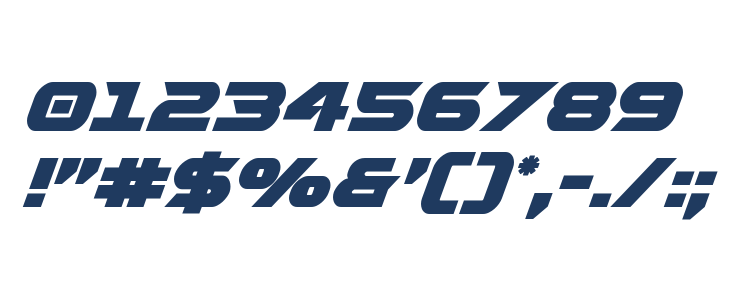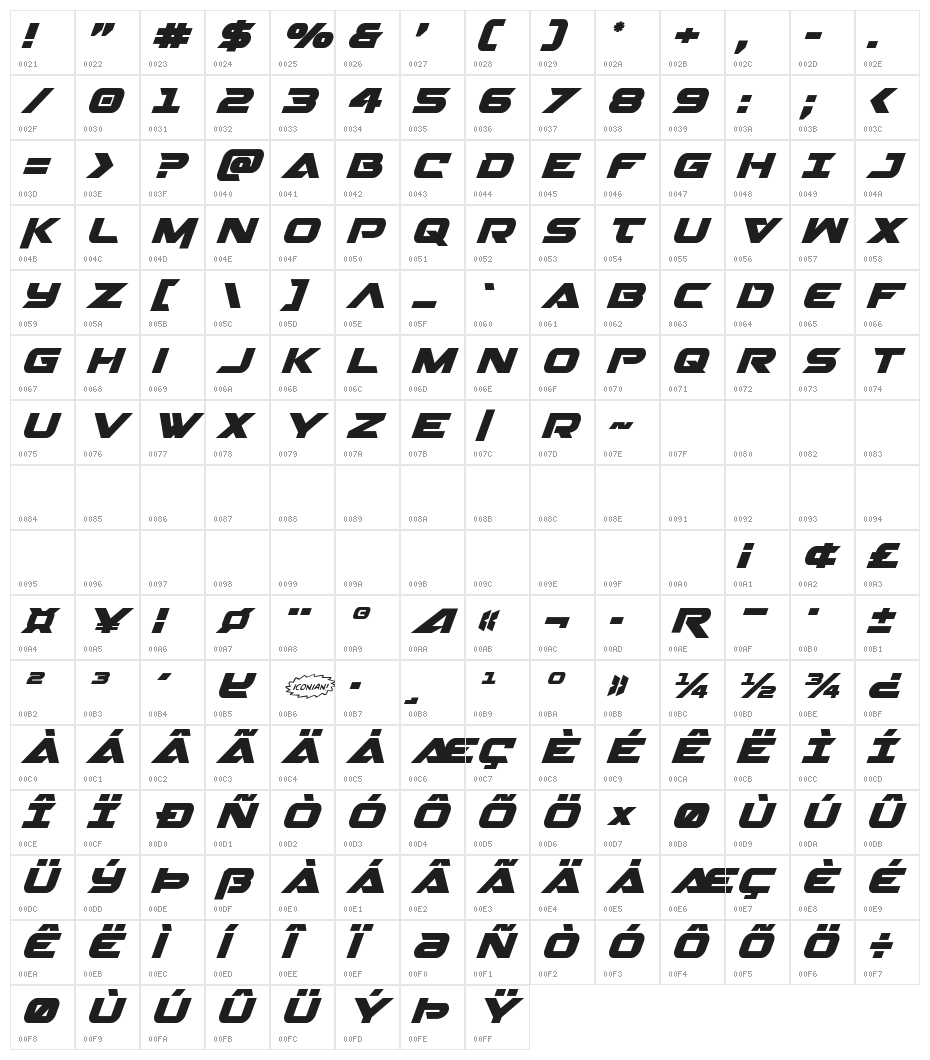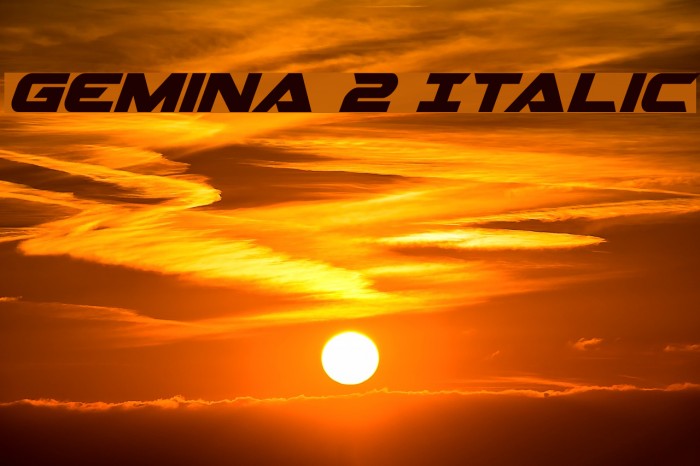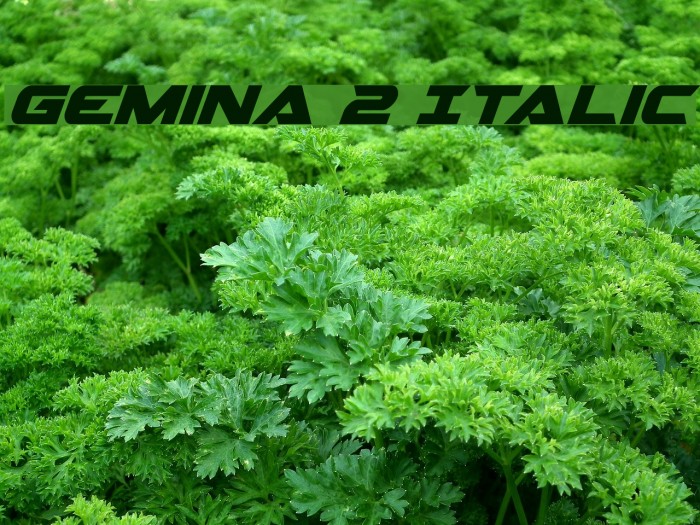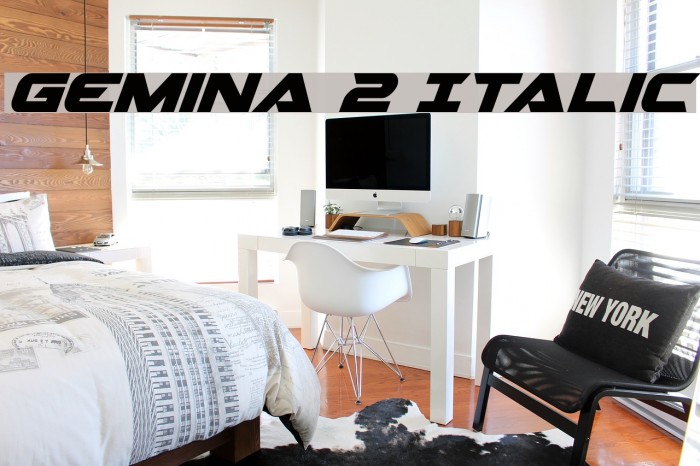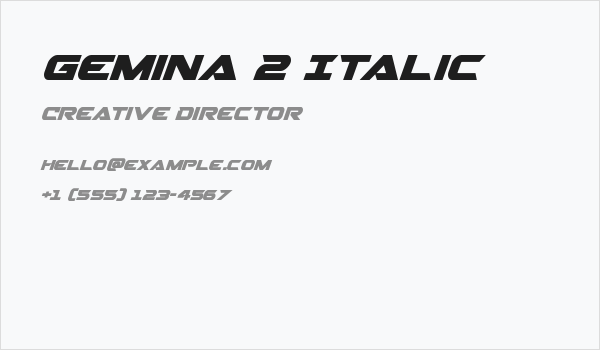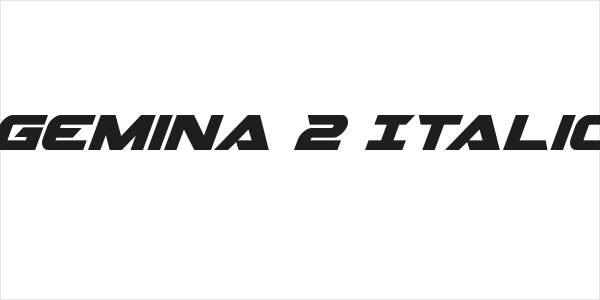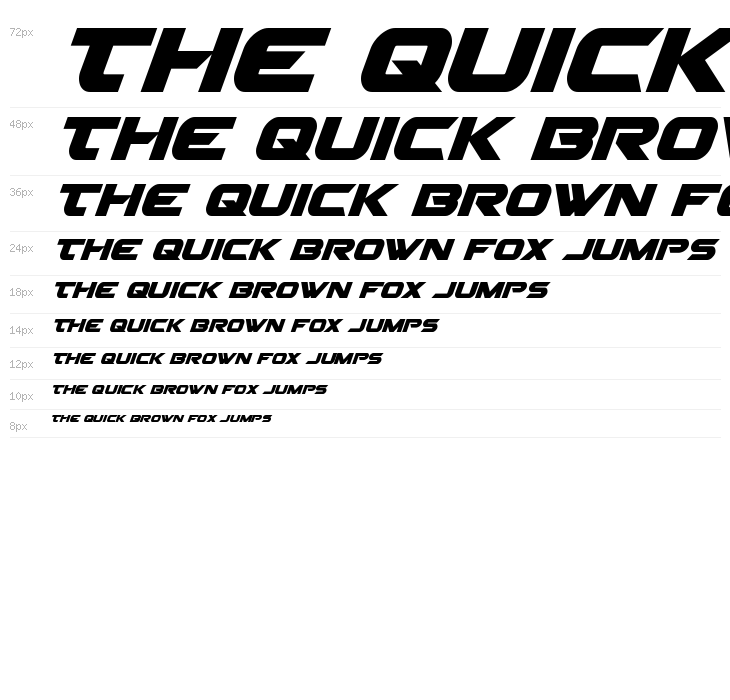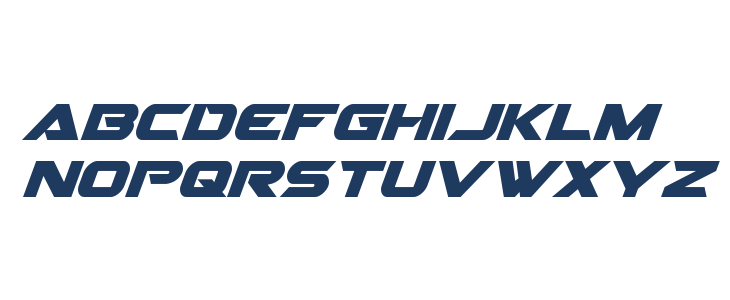
Gemina 2 Italic Font
Gemina 2 Italic Description
This font features a dynamic and modern design with a distinct italic slant, giving it a sense of motion and speed. The characters are bold and angular, with sharp edges and a futuristic aesthetic. The uppercase and lowercase letters maintain a consistent style, while the numerals and special characters complement the overall design. The font's unique style makes it stand out, making it suitable for projects that require a bold and contemporary look.
| Proposed Projects | Ideal for sports branding, automotive advertisements, tech company logos, and dynamic poster designs. |